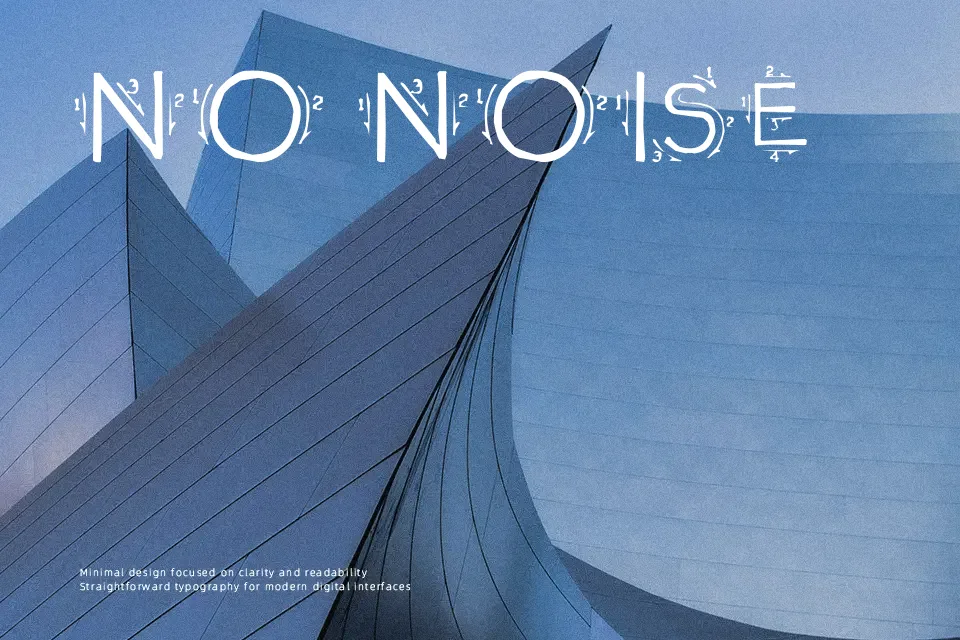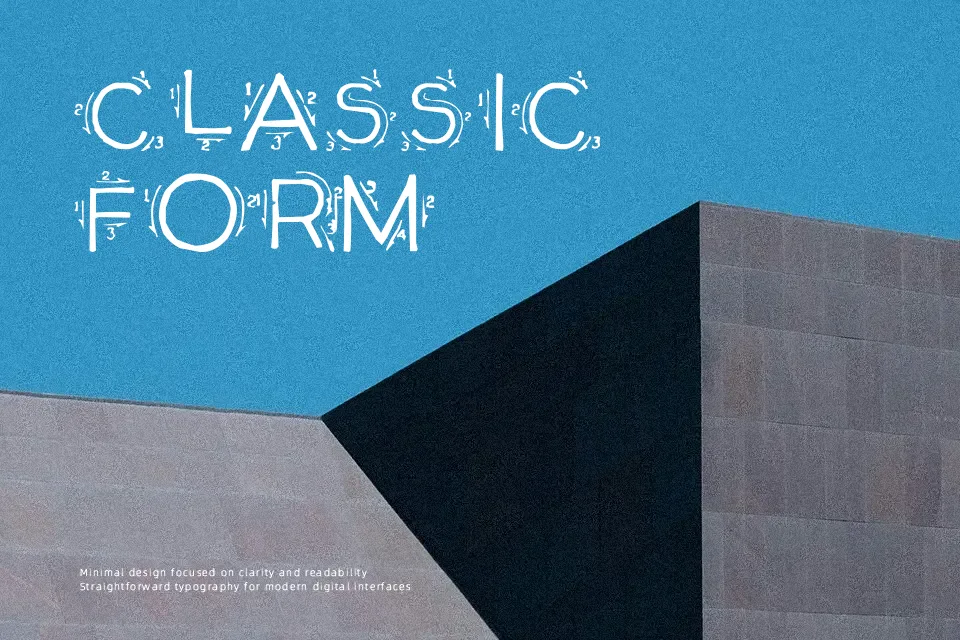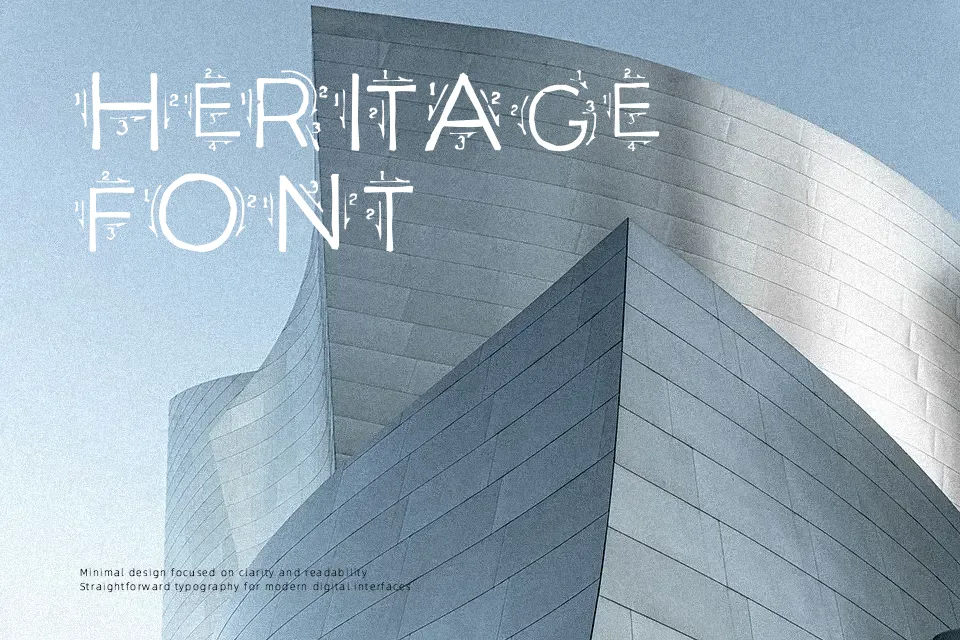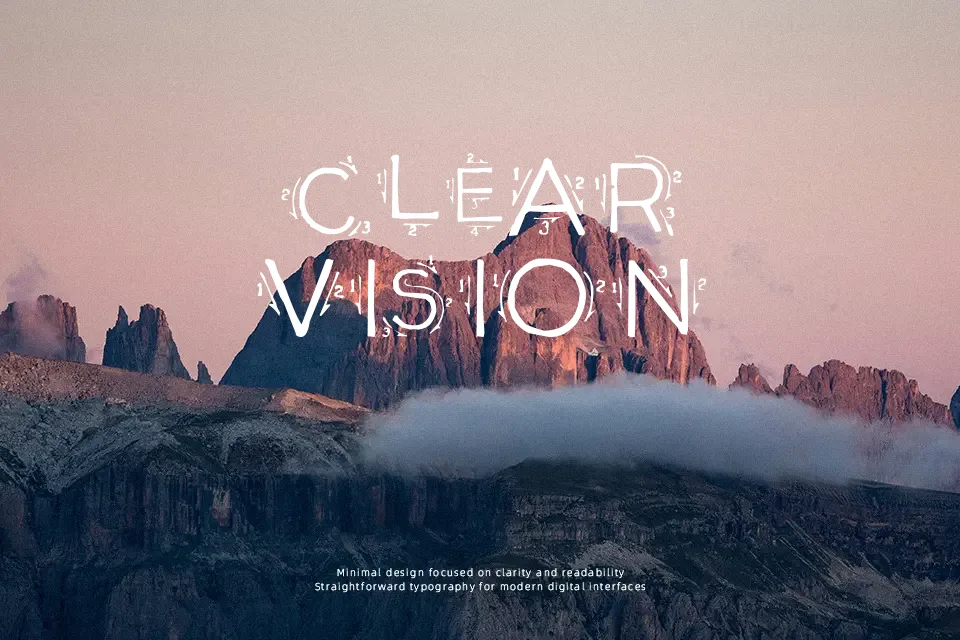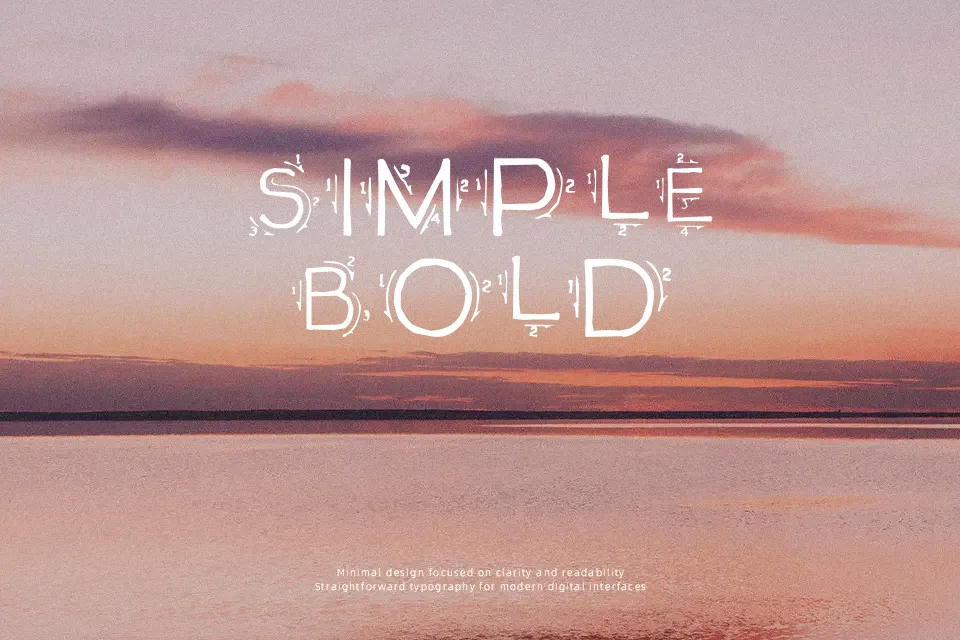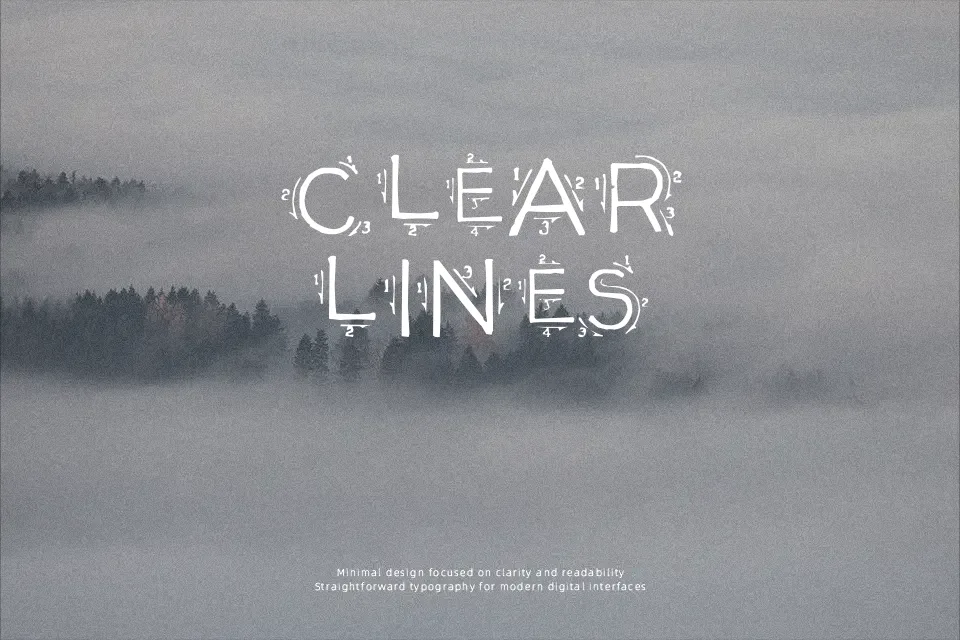
Single Stroke Font
Designed by Spork Thug Typography
Single Stroke Font establishes a striking visual identity through continuous monoline construction, balanced proportions, and open character spacing. Each glyph relies on consistent stroke thickness and geometric turns, forming a clean yet highly stylized rhythm across uppercase and lowercase letterforms. The generous tracking ensures that short titles and prominent display headers remain immediately recognizable across large print media and digital banners. However, the decorative single-path structure reduces comfort during continuous reading and loses clarity in dense editorial paragraphs or compact captions. For music packaging, poster titles, and creative merchandise, the typeface provides a distinct, memorable aesthetic.
Best For: music festival posters, creative merchandise packaging, apparel graphics, website hero headlines
Not Ideal For: continuous body text, small mobile interface labels, dense editorial layouts, technical documentation